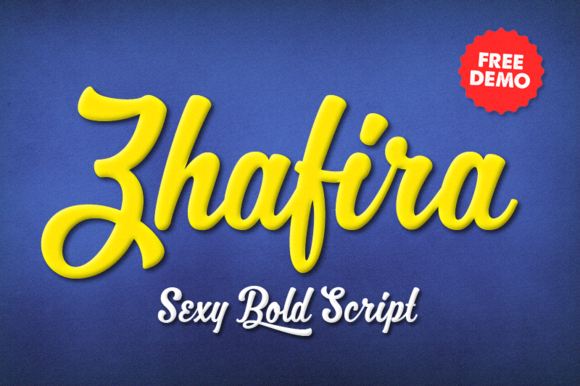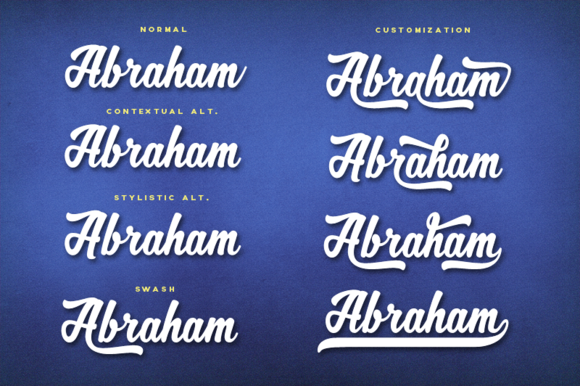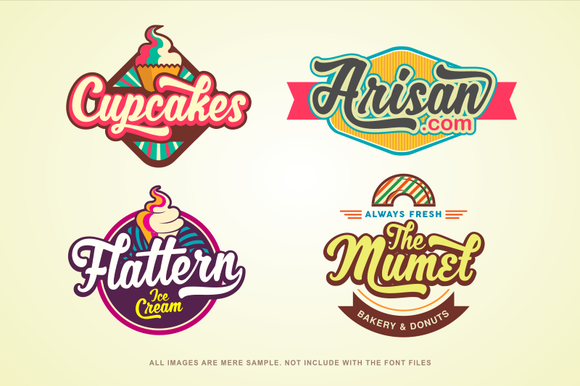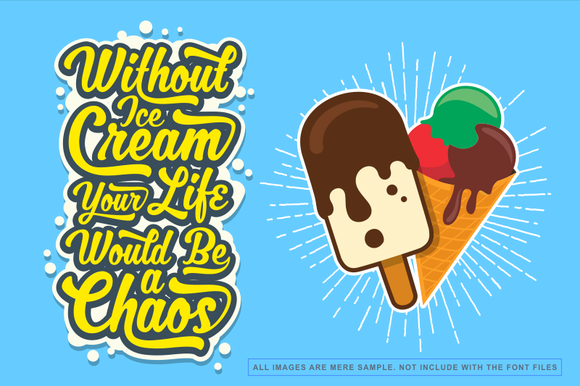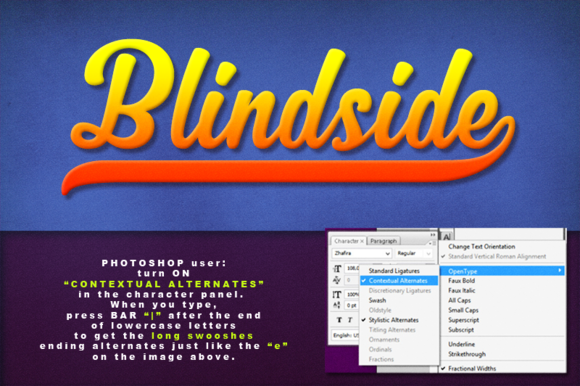
Zhafira Script Font
About Zhafira Script Font
Zhafira is a complete and beautiful strong script created by MikroJihad.
The Zhafira font features:
Stylistic Alternates
Swashes Alternates
Contextual Alternates
Standard Ligatures
Stylistic Set for glyph substitution.